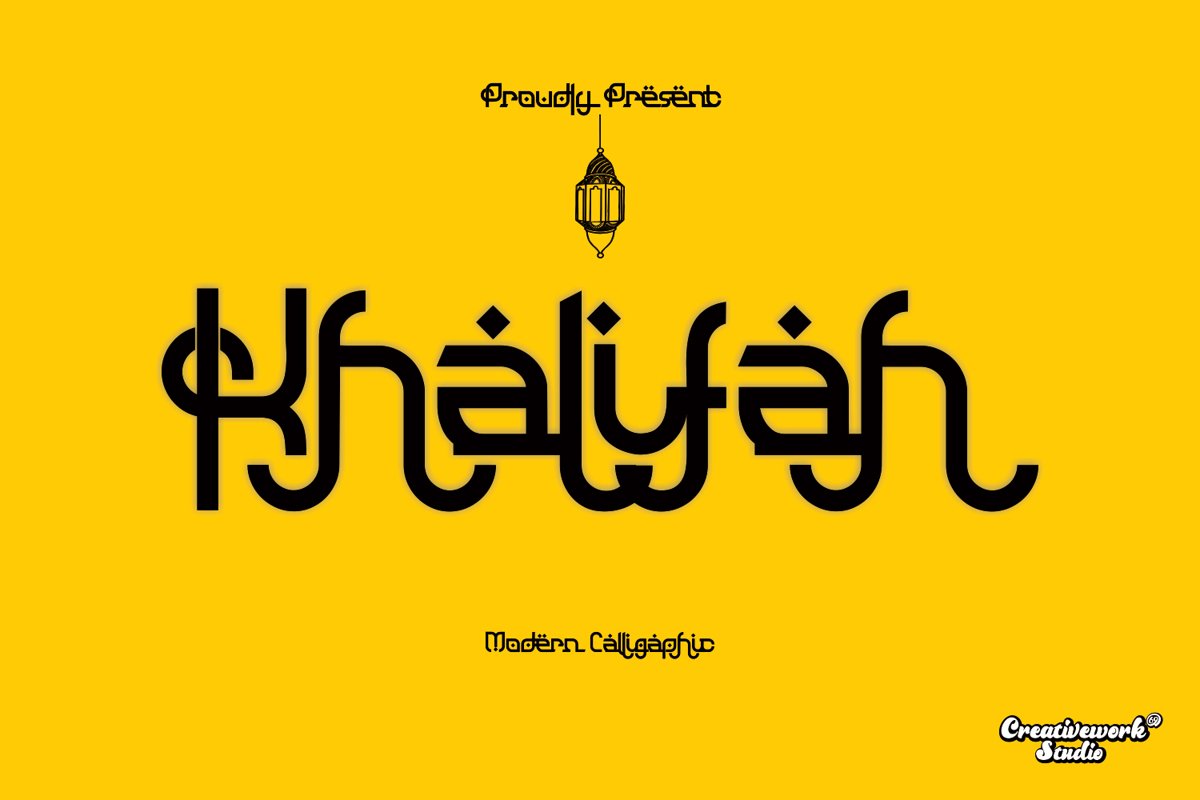
Khalifah
Khilafah
The Khalifah font is a calligraphic font, which has special characteristics. fonts are suitable for product names, product brands, logos and holiday greeting cards.